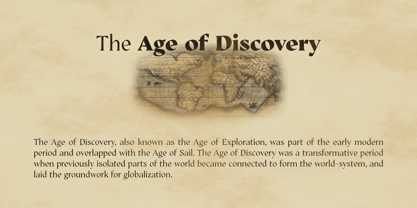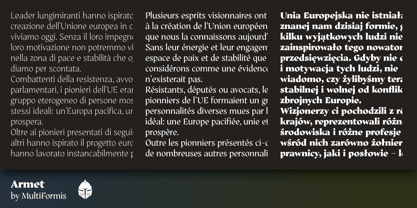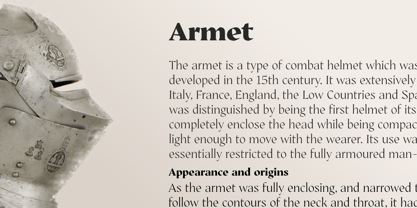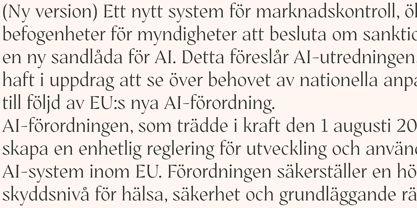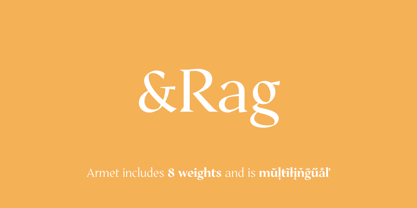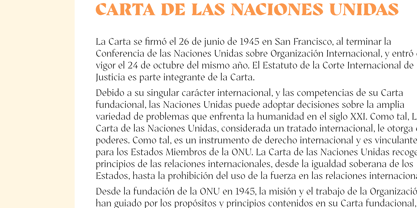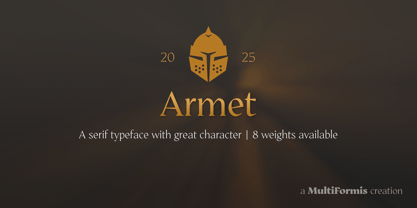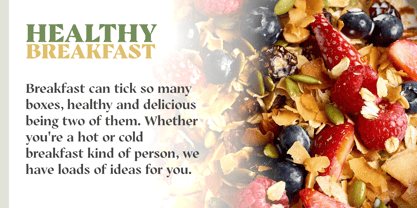
Armet
by Multiformis
The Armet Font Family was designed by Pedro Madeira and published by Multiformis. Armet contains 8 styles and family package options.
Inspired by 15th century armory, Armet is a serif typeface intended to project confidence. The slightly unconventional strokes, uneven serifs and stress give it a great character and a distinctive style. The typeface was designed with slightly odd shape elements to provide a craftmanship-like construction, rather than mechanical. Armet was developed mainly for display use, but with the lighter weights spaced loose enough to maintain readability at smaller sizes. This decision was taken to maximize the spectrum of projects it would fit.
About Multiformis
Multiformis is an independent type foundry founded in 2020 by Pedro Madeira, a Portuguese type designer, and is based in Lisbon, Portugal. Our goal is to create beautiful and also useful typefaces, either for professional design projects or personal use. Multiformis was born from the founder's long-time passion and even obsession with type design. We combine professionalism with art.